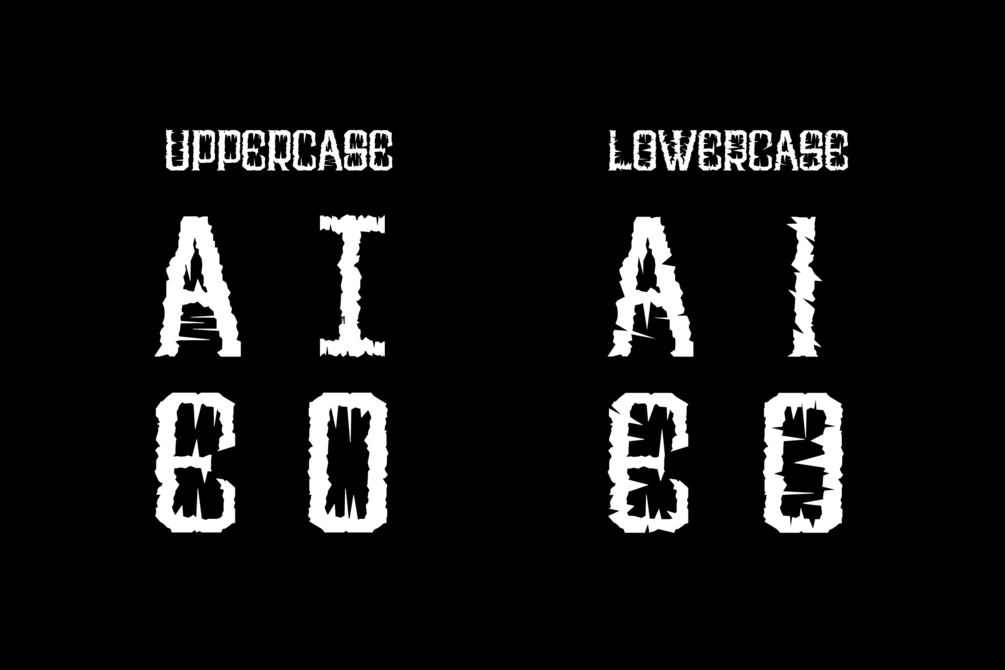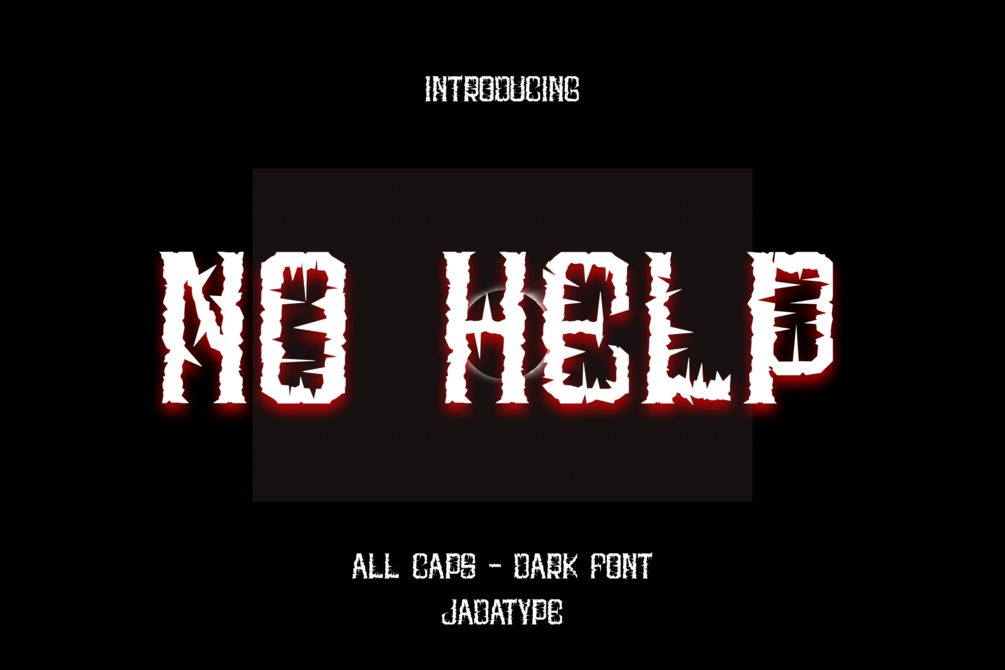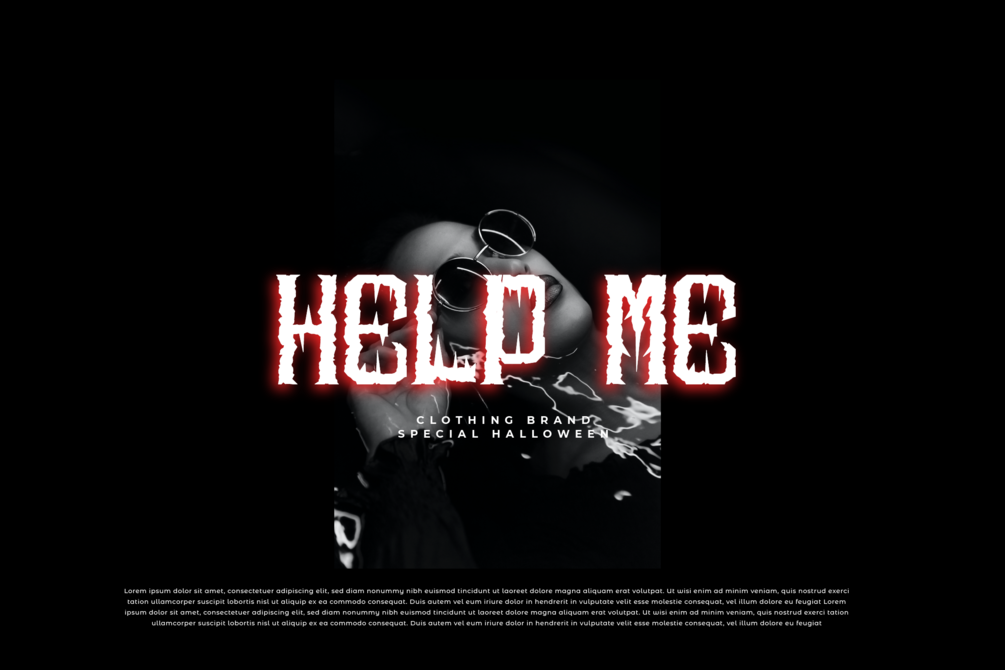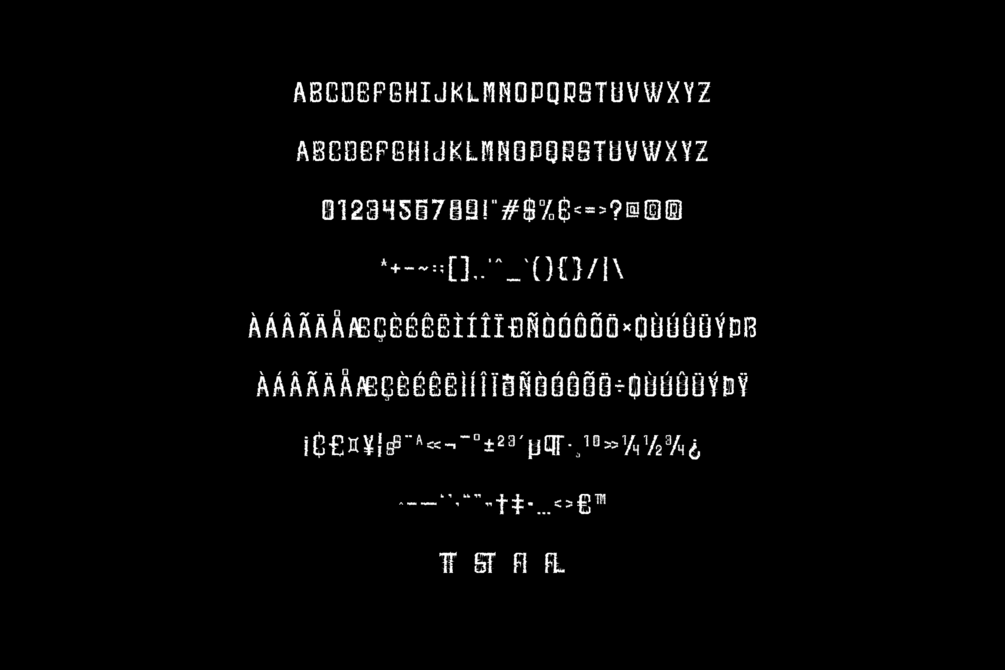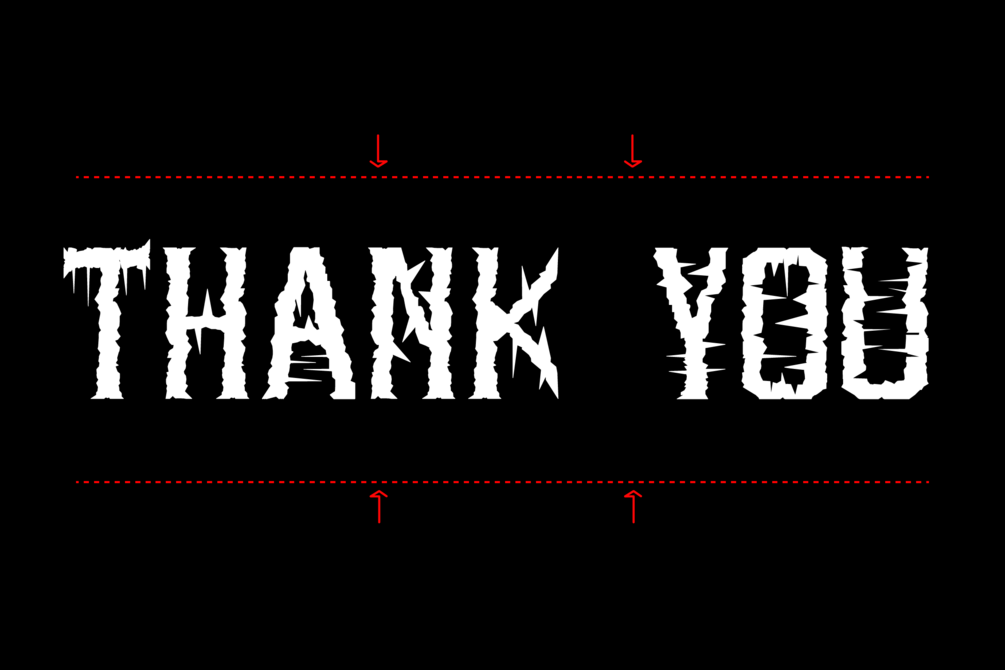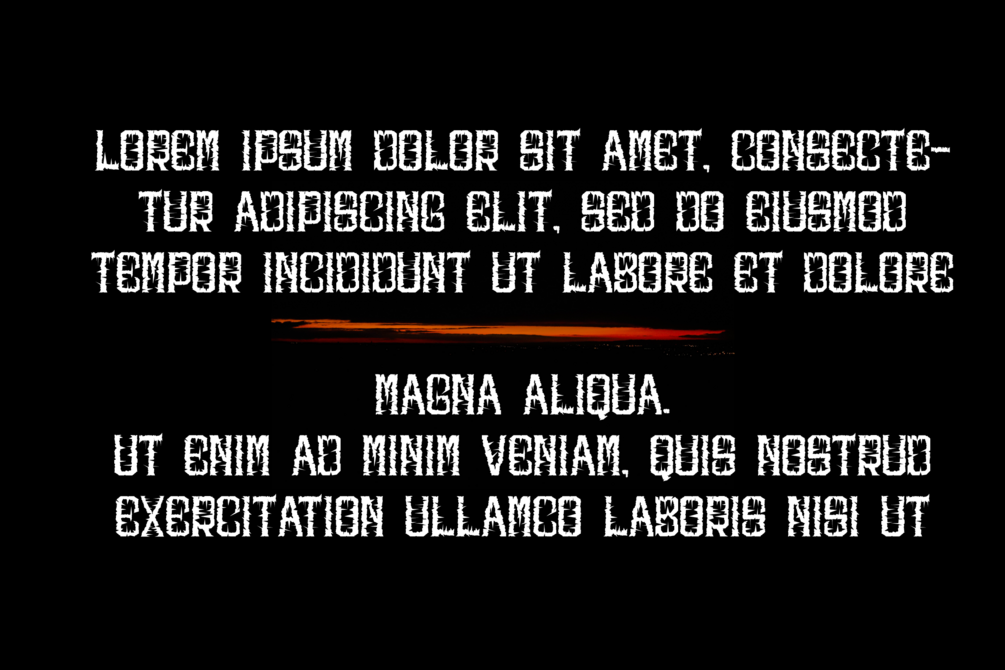
No Help Font
No Help is an all caps display font that comes with a scary-dark-black-halloween style. suitable for tshirt, branding, social media, and so on. contains standard English letters, numbers, punctuation, and several accents that support multilingualism.